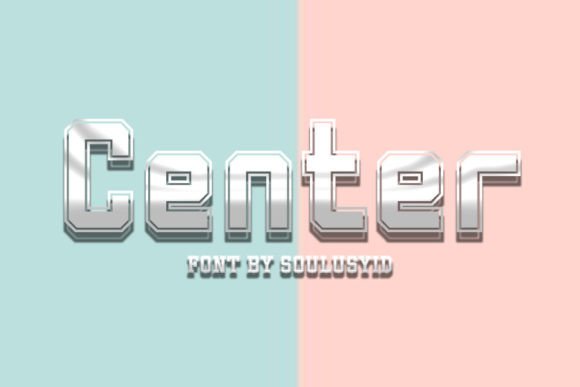
Introducing Center Font, a captivating and elegant sans-serif font that effortlessly combines the best of traditional influences with a modern and contemporary aesthetic. Created by the talented SoulusYid, this font is designed to captivate and inspire, making it the perfect choice for any creative project.
With its sleek and sophisticated appearance, Center Font is guaranteed to make your branding efforts stand out from the competition. Whether you're creating a logo for your business, designing greeting cards, crafting stunning business cards, or even curating eye-catching posters, this font will elevate your designs to new heights.
But the possibilities don't end there. Center Font is incredibly versatile and can be used for a wide range of applications. Imagine using it to create captivating t-shirt designs that make a bold statement or designing menu layouts that entice and engage customers. With Center Font, the only limit is your imagination.
In today's digital age, having a strong online presence is essential. That's why Center Font is the perfect choice for social media and website designs. Its clean lines and modern appeal will instantly grab attention and leave a lasting impression on your audience. Say goodbye to boring and generic fonts and embrace the power of Center Font to truly make your online presence shine.
But what sets Center Font apart from other fonts on the market? It's not just its stunning appearance; it's the emotions it evokes. This font exudes confidence, sophistication, and professionalism. It speaks volumes about your attention to detail and your commitment to excellence. Center Font isn't just a font; it's a statement.